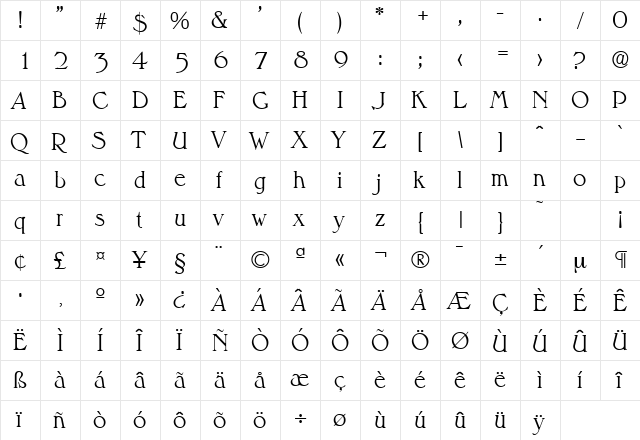
Melbourne-Serial-Light Regular
Design Context for Melbourne-Serial-Light Typeface
Melbourne-Serial-Light offers clean, dependable letterforms without strong stylistic allegiance, making it a practical choice for designers who need flexibility. The delicate stroke weight brings airiness and refinement to layouts.